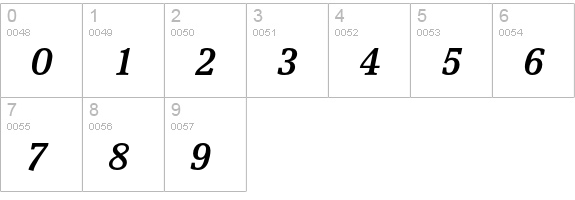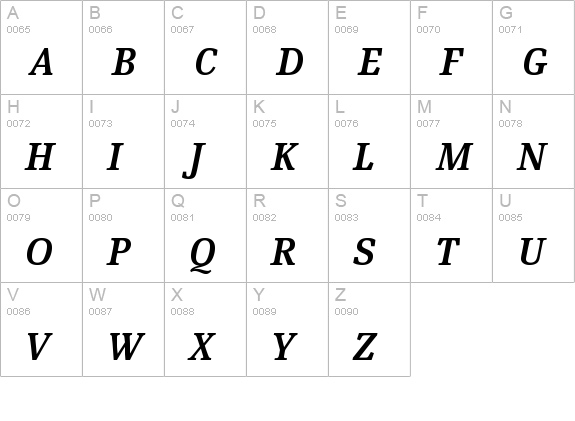
Scherzo Std Demi Italic Font Details
Scherzo Std Demi Italic is a sub-bold, structured, italic variant in the Scherzo typeface family \xE2\x80\x94 well suited to sub-headlines and emphasised passages.
Scherzo Std Demi Italic font exudes a playful and energetic charm that will add a touch of whimsy to any design project. Its bold and slanted letters dance across the page, creating a sense of movement and excitement. With its slightly exaggerated curves and confident strokes, this font is perfect for capturing attention and making a statement. The Demi Italic variation of Scherzo Std adds an extra level of elegance and sophistication to the font's already captivating appeal. The italicized slant adds a sense of fluidity and grace, making it ideal for projects that require a touch of boldness with a hint of finesse. One of the best things about Scherzo Std Demi Italic font is that it is completely free. Yes, you read that right! This stunning font is freely available to download at FontsMarket.com. Whether you're a professional designer, a student, or simply a creative enthusiast, you can now access this exceptional font without any cost, making it a valuable asset for all your creative endeavors. So why wait? Enhance your designs with the dynamic and charismatic presence of Scherzo Std Demi Italic font. Download it for free today at FontsMarket.com and let your imagination run wild as you embark on a typographic journey like no other.